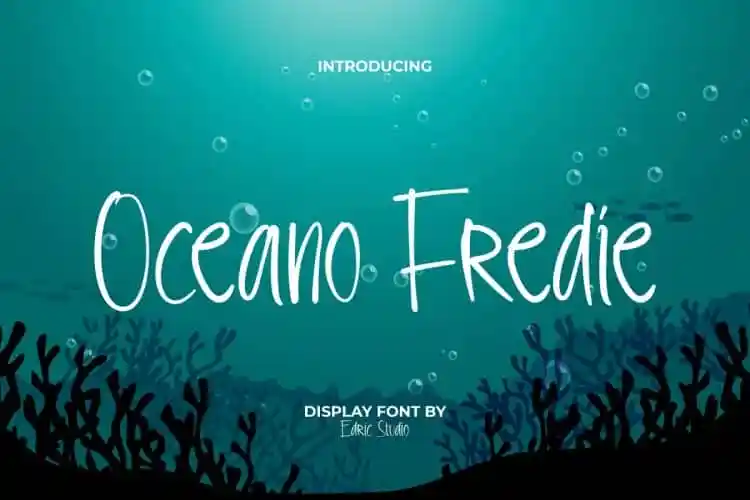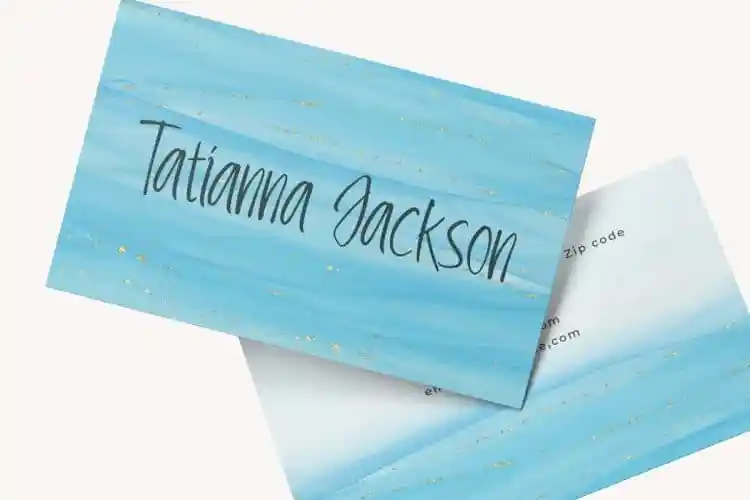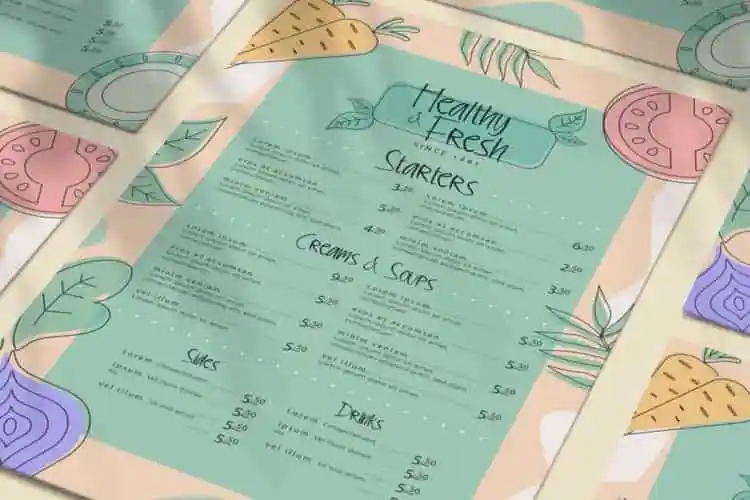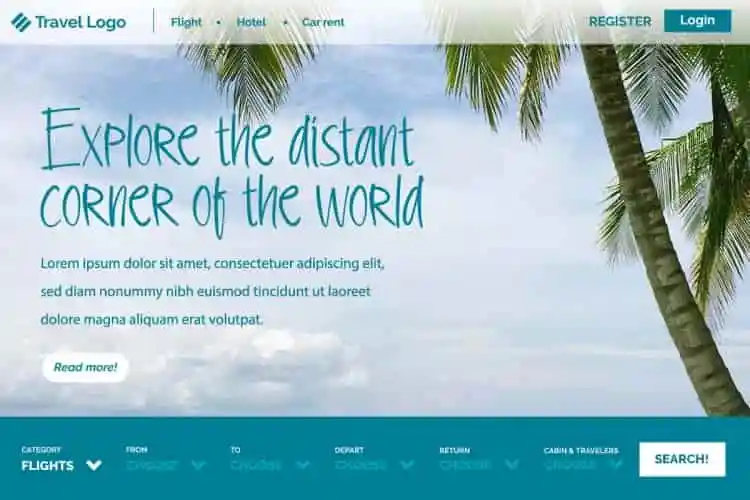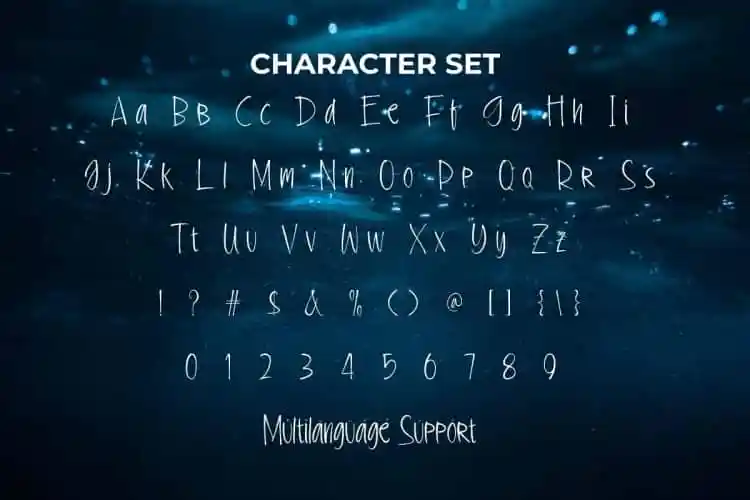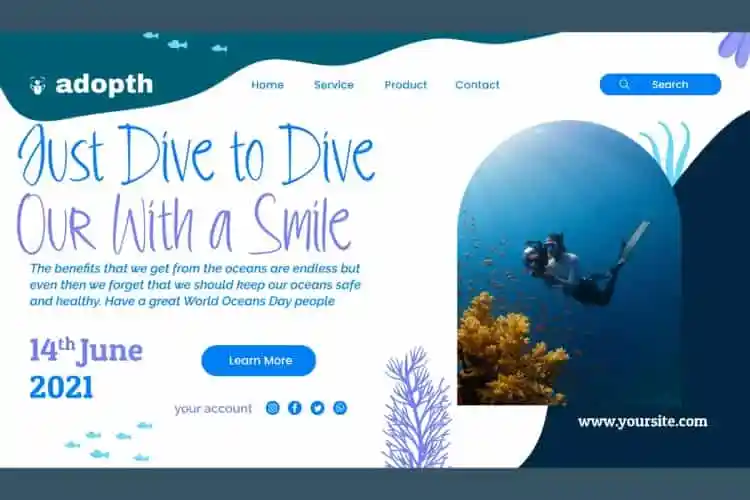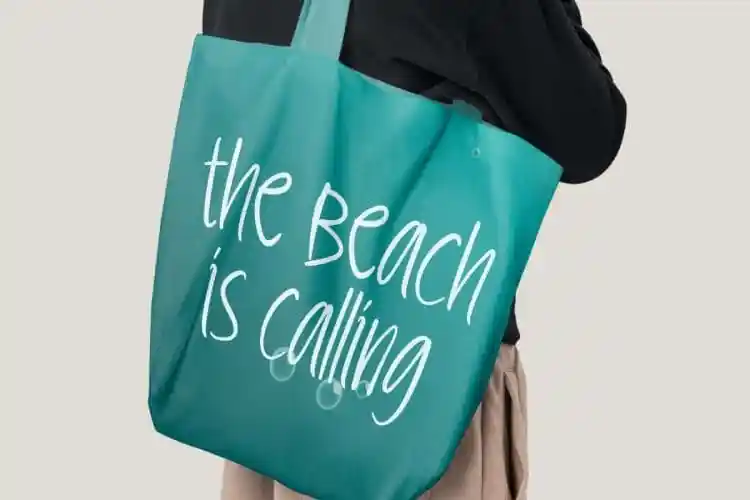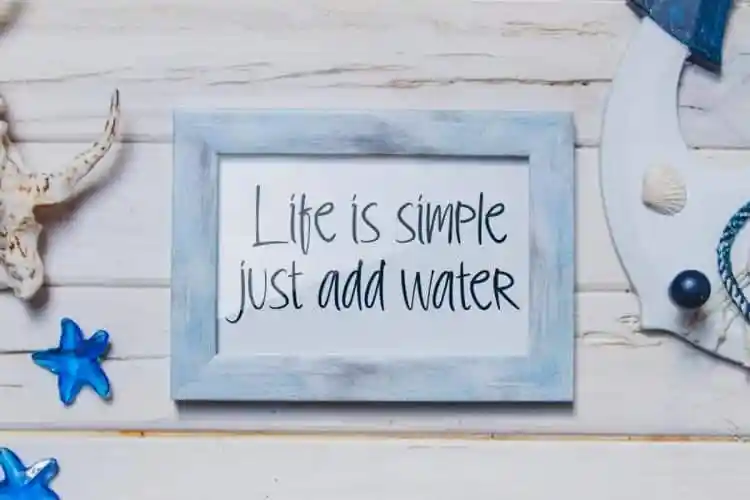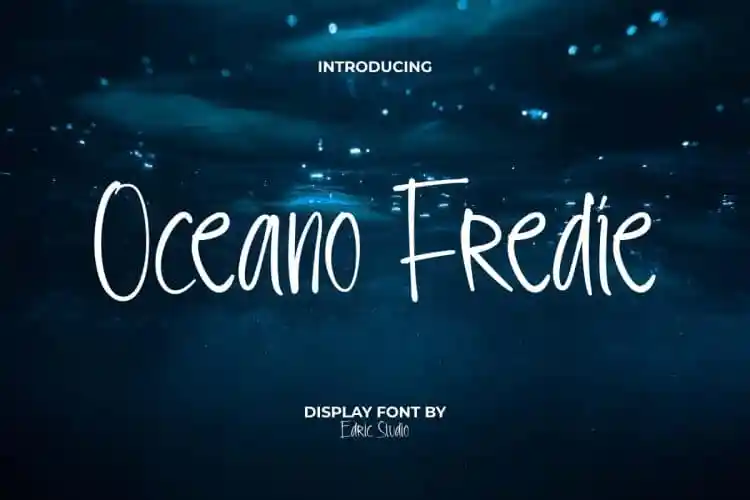
Oceano Fredie Font is a fun display font in a beautiful marine theme.This can used to create anything as desired, such as blogs, covers, custom bag, flyer, greeting card, header, invitation, labels, logos, menu, packaging, design, print bag, quotes, sticker, title, watermarks, website header, and so much more.
Oceano Fredie Font a light and soft ink style display font that handcrafted to produce truly distinctive and original letters. Each letter has been carefully crafted to make your text look beautiful.Perfect for bringing a sense of calm to your business, such as clothing brand, content creator, craft, fashion, graphic design, maritime festival, restaurant, scuba diving, swimming, travel, vacation agency, etc.